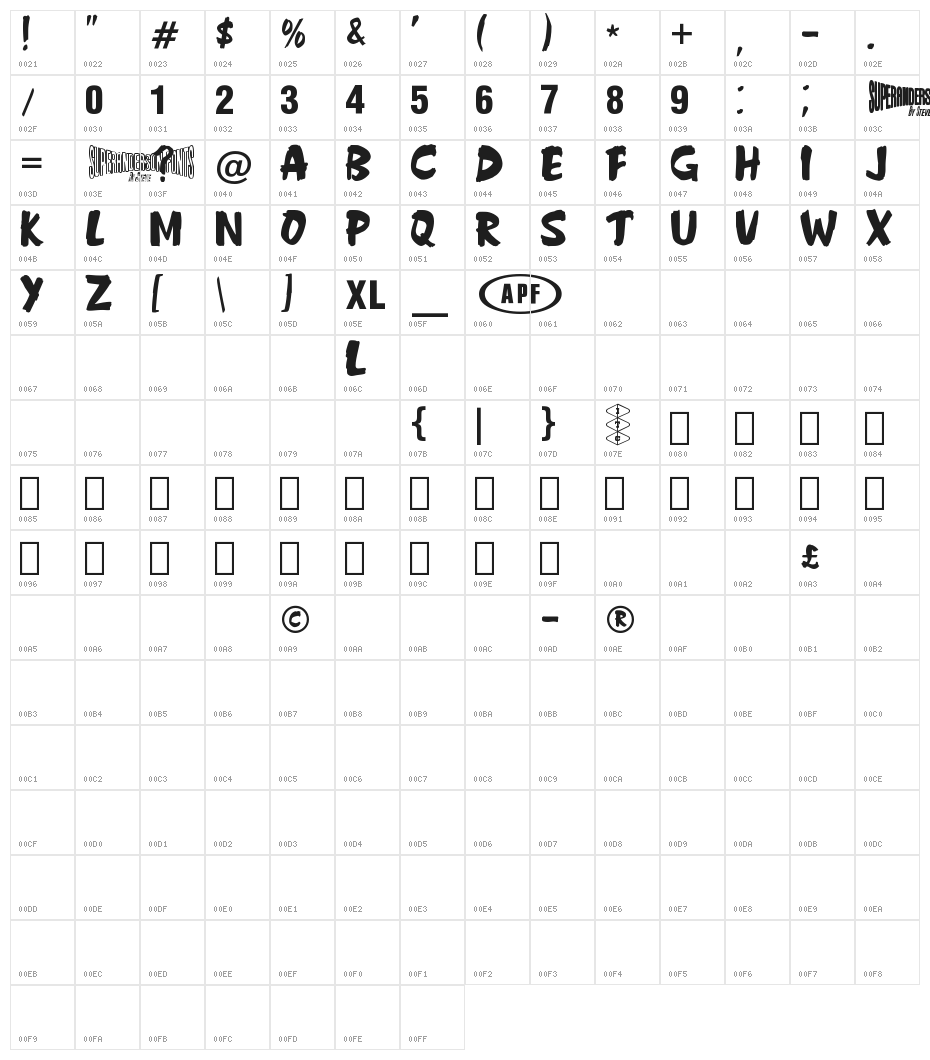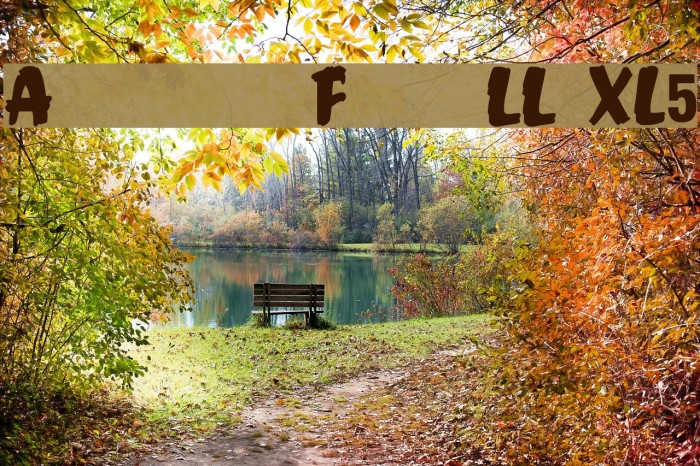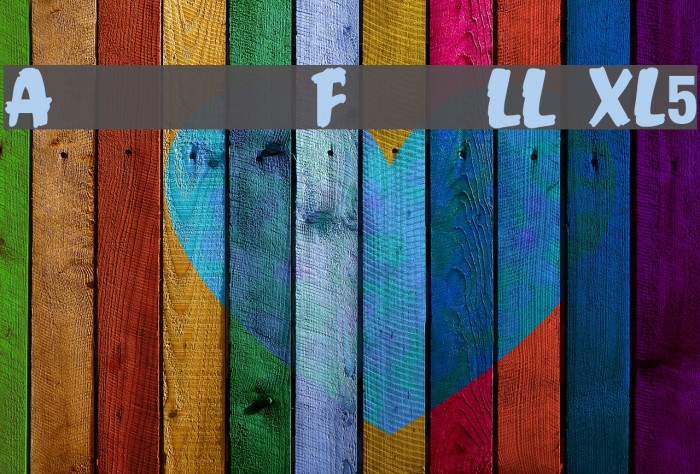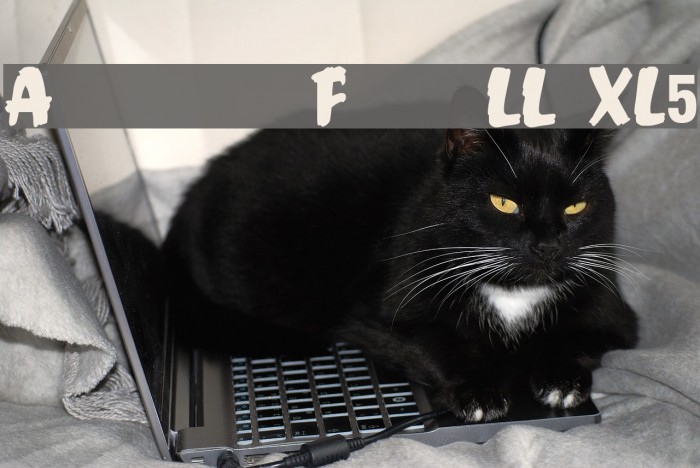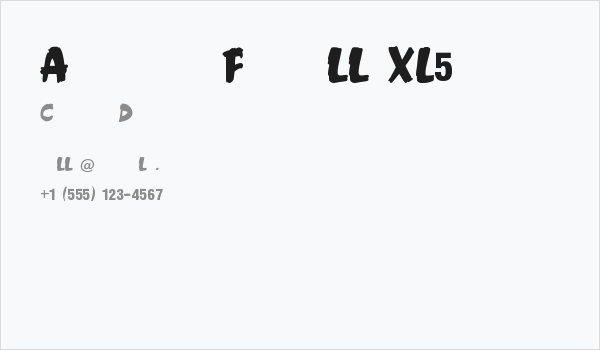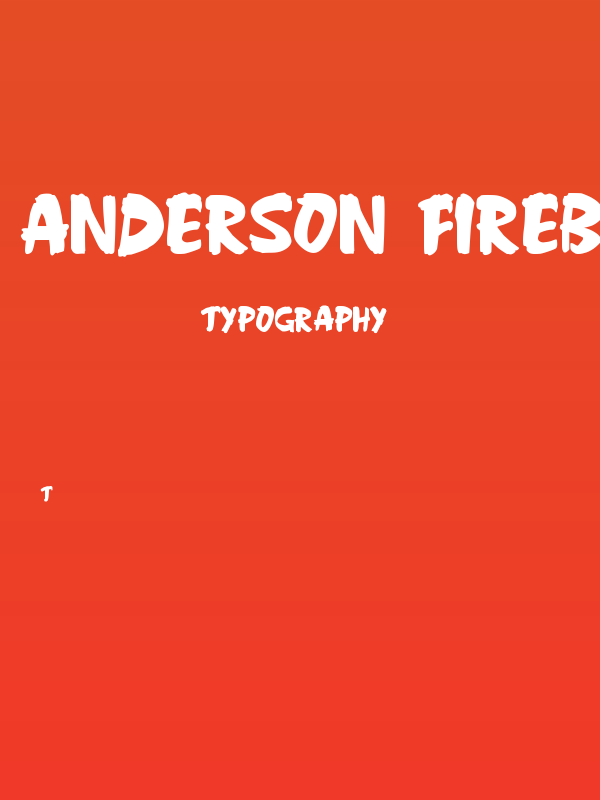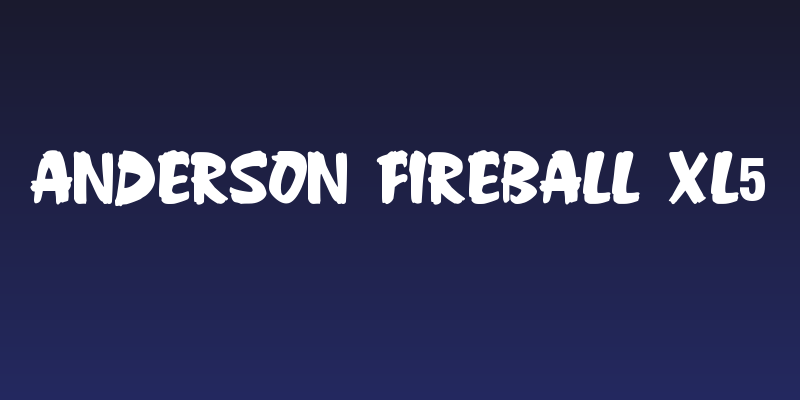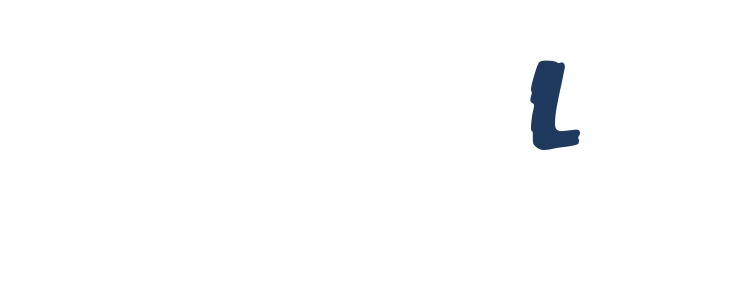
Anderson Fireball XL5 Font
Anderson Fireball XL5 Description
This font exhibits a bold and dynamic style with a hand-drawn appearance. The characters are thick and slightly irregular, giving them a playful and energetic feel. The uppercase letters are prominent and assertive, while the numerals and special characters maintain the same boldness and style. The strokes are consistent in their thickness, providing a uniform look across all characters. This font's unique and lively design makes it suitable for attention-grabbing projects.
| Use Case | Headlines, Posters, Comics |
| Proposed Projects | Ideal for posters, headlines, comic books, and any project requiring a bold and dynamic visual impact. |